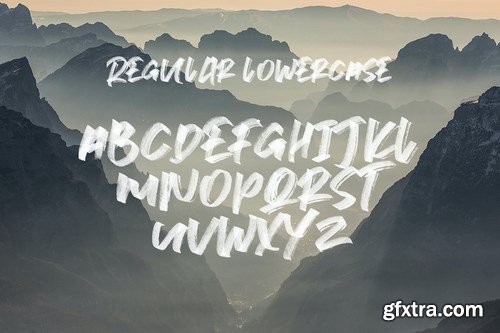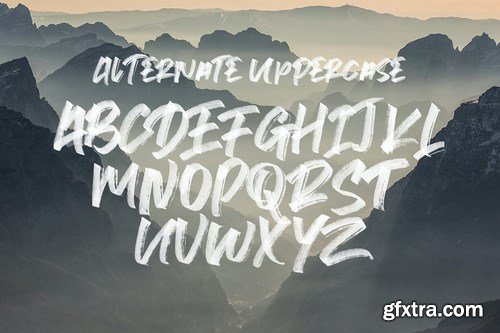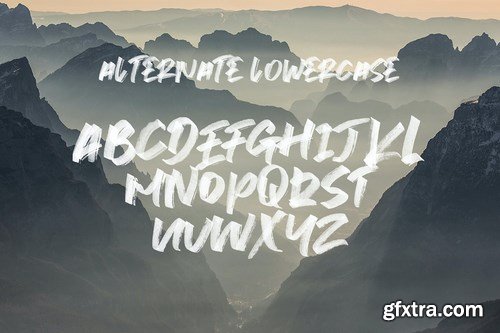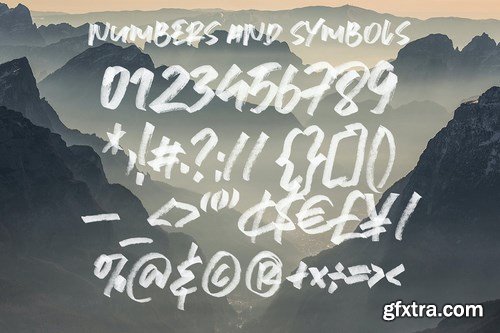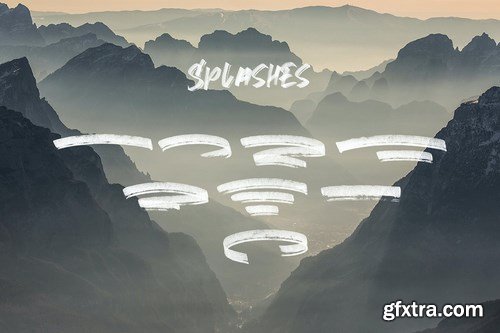
Massive SVG Font made with a transparent line texture. Suitable for use in title design such as invitations, signboards, book titles, stationery designs, quotes, branding, logos, greeting cards, packaging designs, posters, and more.